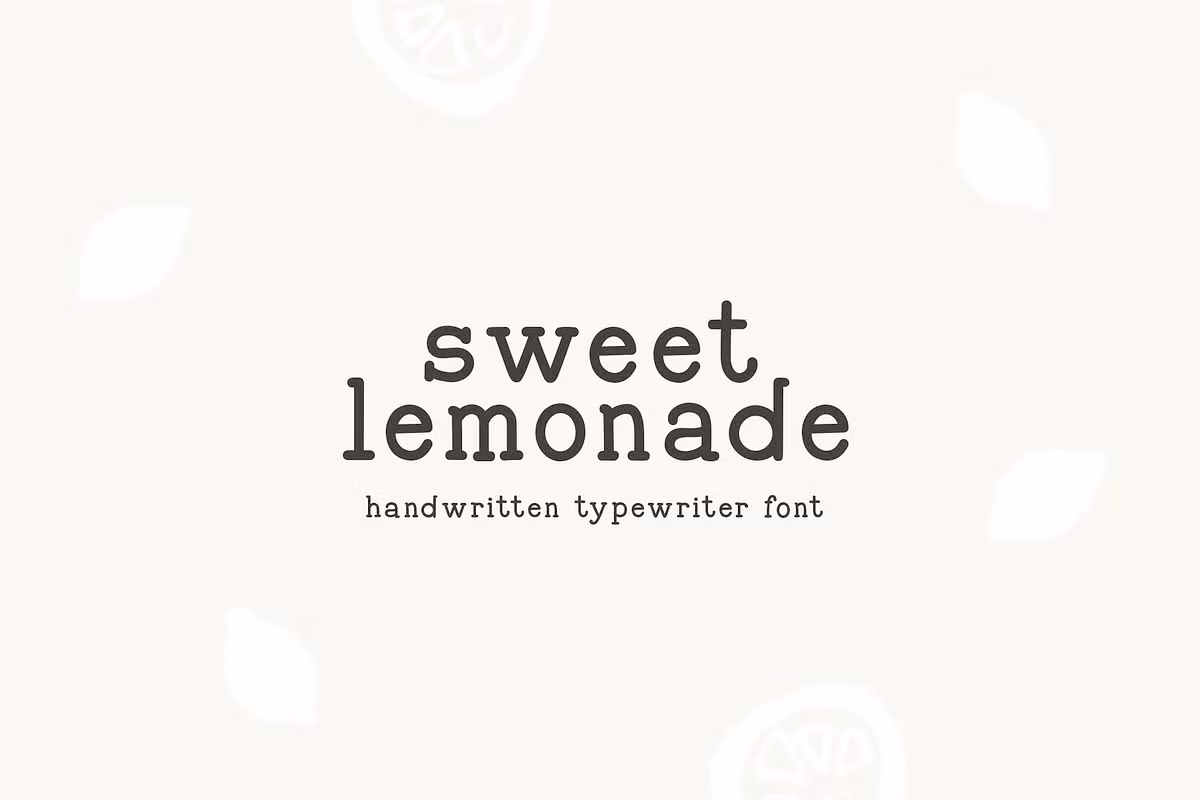
Please note that you must purchase this font for commercial use. You can download Sweet Lemonade – Typewriter Font for free, strictly for personal testing purposes only. Sweet Lemonade is a charming typewriter-style font that combines a vintage look with a playful, handwritten feel. With its soft edges and slightly imperfect strokes, Sweet Lemonade Font Free Download is perfect for creating personalized, retro designs, such as invitations, branding, social media posts, and more.
The typewriter style adds a nostalgic touch to your typography, making it ideal for projects that require a vintage or personal flair. It includes uppercase and lowercase letters, numerals, punctuation, and multilingual support, offering flexibility for a wide range of creative uses.
Whether you're working on a fun project, designing retro-inspired branding, or creating a warm, personal invitation, Sweet Lemonade adds character and charm to your designs.